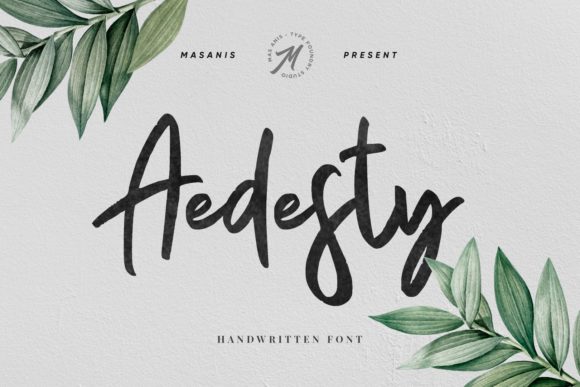
Aedesty Font: The Perfect Solution
Aedesty Font is a game-changer for designers, crafters, and creative hobbyists. Its unique blend of modernity and elegance makes it perfect for a wide range of design projects. Here’s what I love about Aedesty Font:
- ✨ Modern and fresh feel: Aedesty Font has a distinctly modern vibe that’s perfect for brands looking to revamp their image.
- ✅ Elegant and refined: The font’s light feel and smooth lines make it ideal for designs that require a touch of sophistication.
- ✨ Highly versatile: Aedesty Font can be used for a wide range of design projects, from logos and branding to packaging and advertising.
Honest Review: The Not-So-Perfect Font
No font is perfect, and Aedesty Font is no exception. Here are a few quirks to keep in mind:
- 🤔 Limited use of uppercase letters: While Aedesty Font does have uppercase letters, they’re not as stylized as the lowercase letters. This might be a consideration for designs that require a lot of uppercase text.
- ⚠️ Occasional kerning issues: As with any font, there may be occasional kerning issues, especially when using Aedesty Font at smaller sizes.
The Story Behind Aedesty Font
Aedesty Font was designed by a team of typographers who wanted to create a font that would capture the essence of modern elegance. Inspired by the world’s most beautiful handwritten scripts, Aedesty Font combines classic techniques with modern flair. The result is a font that’s both refined and approachable – perfect for designers who want to add a touch of sophistication to their work.
| Font Name | Aedesty Font |
| Author | Mas Anis |
| What is Aedesty Font? | Aedesty Font is a smart and modern handwritten font with a light feel. |
| Is Aedesty Font easy to read? | Yes, Aedesty Font is highly legible and easy to read, even at smaller sizes. |